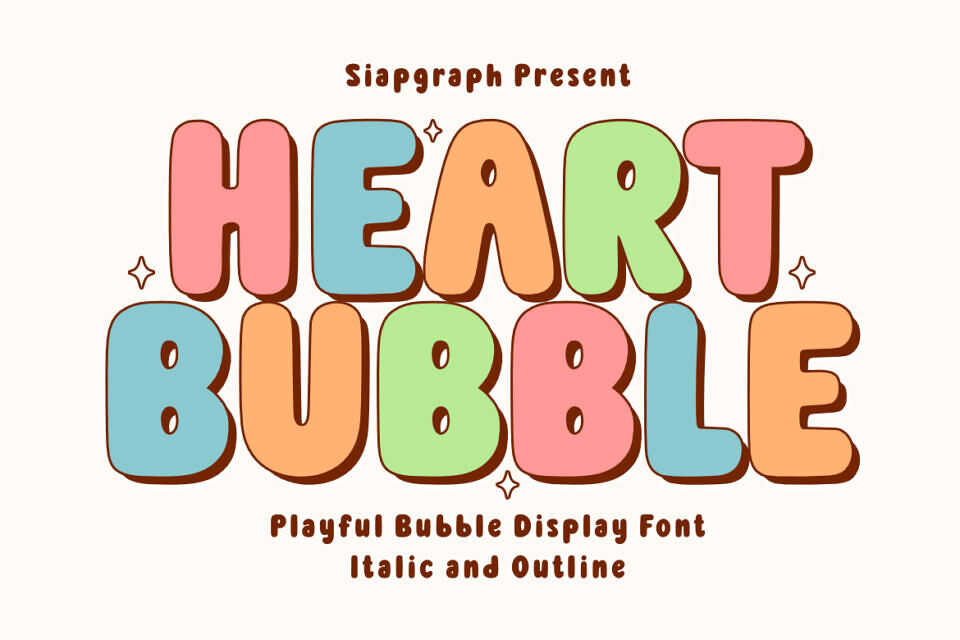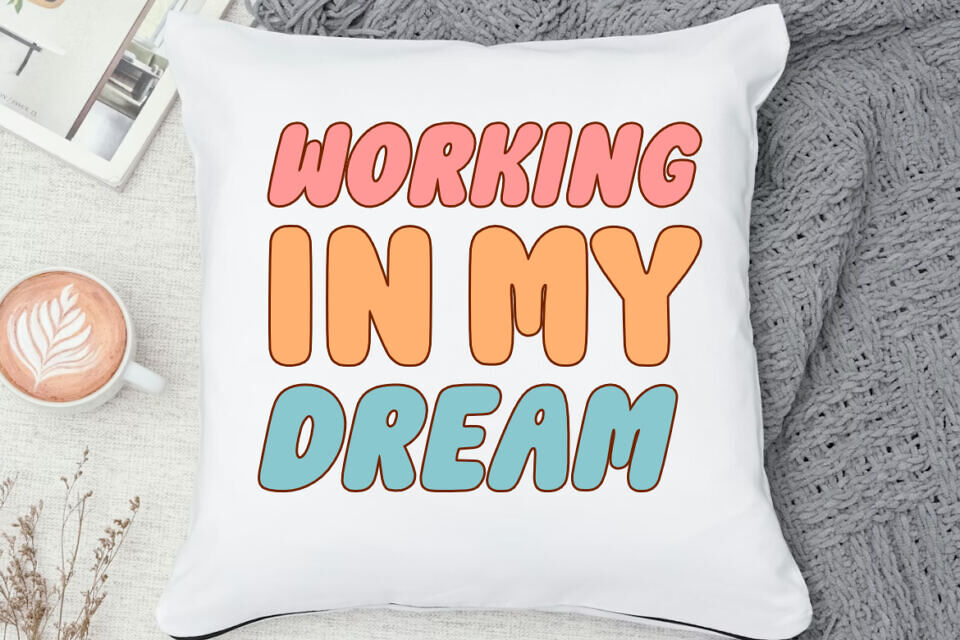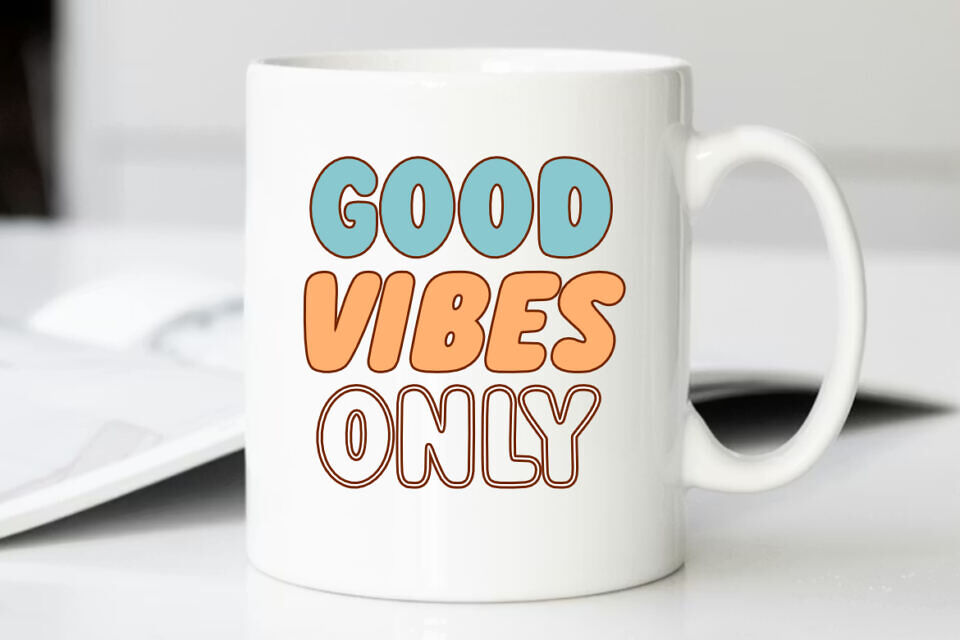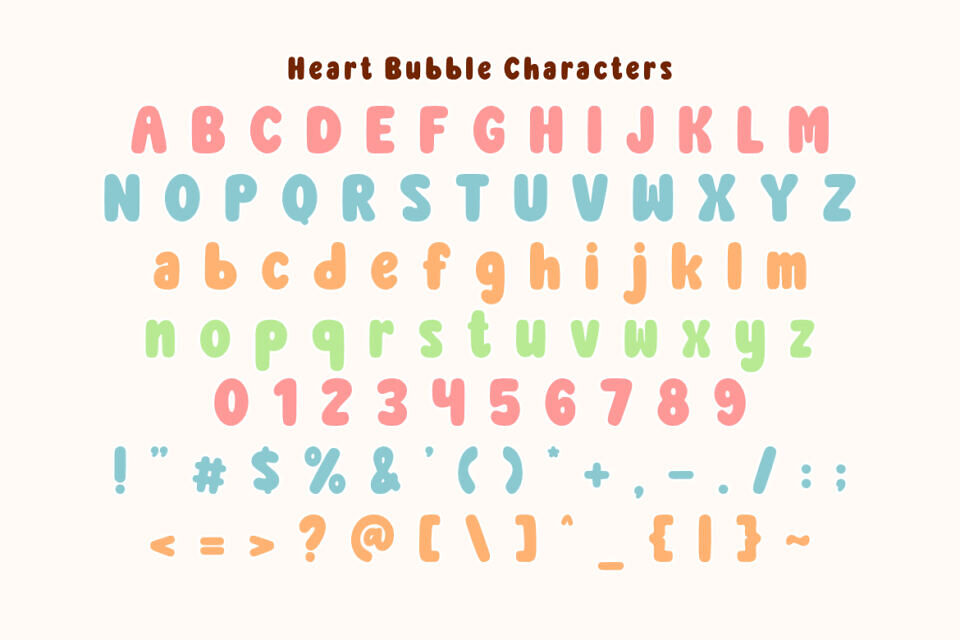
Bring your ideas to life with Heart Bubble, a charming and playful bubble display font that exudes playfulness! Its soft curves and bold appearance are perfect for creating eye-catching headlines, posters, social media graphics, and branding. Add a dreamy touch to your designs with this delightful font that’s both fun and versatile.
Perfect for: creating high-impact SVG cut files, personalized kids’ t-shirts, adorable stickers, nursery wall decor, birthday party invitations, custom mugs, social media quotes, and boutique branding. It also works beautifully for digital scrapbooking, tote bags, and playful logo designs.